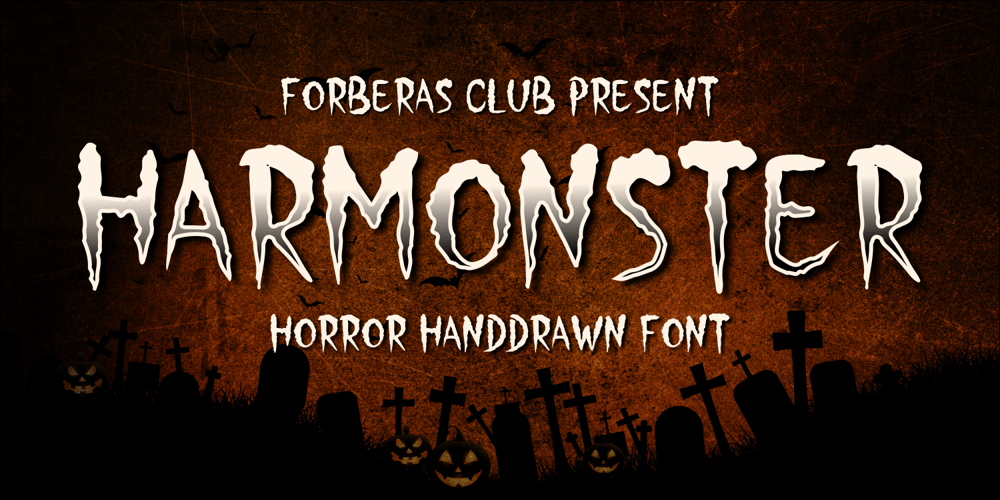
Harmonster Font Family was designed by ANGGI HERMAWAN and published by Forberas Club. Harmonster contains 1 styles and family package options. Try to create this Harmonster font for horror style like scary movie, Halloween, ghost, scream, monster and many more about scary theme.